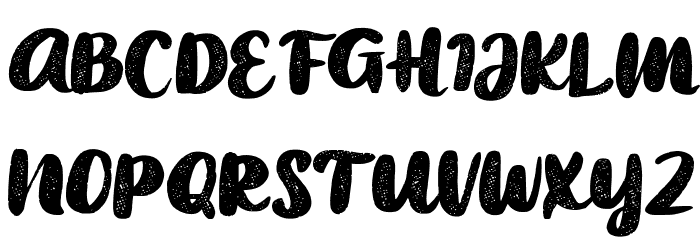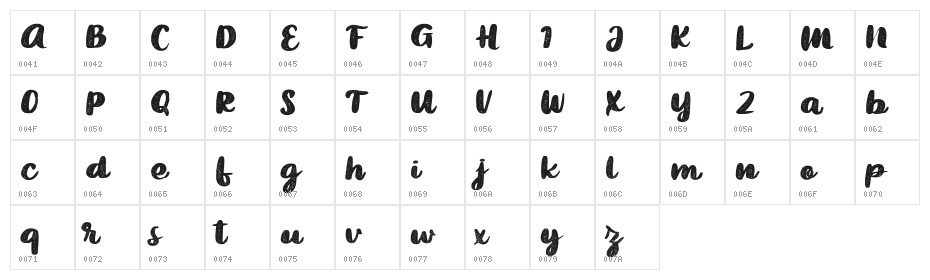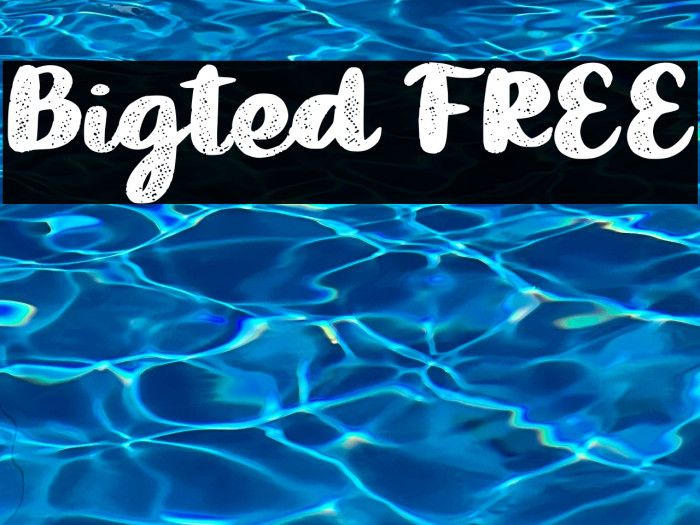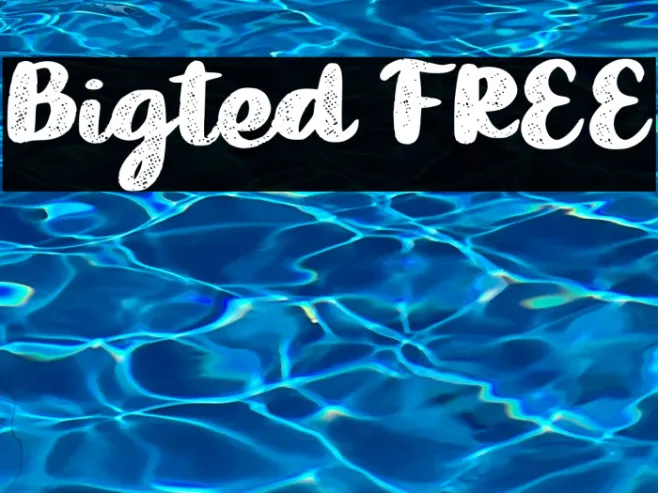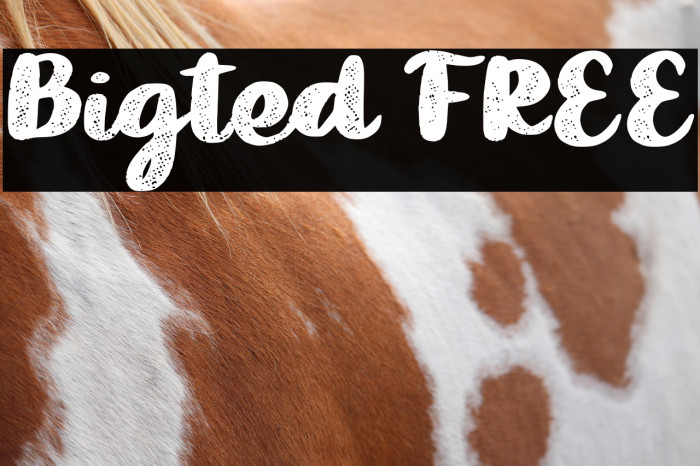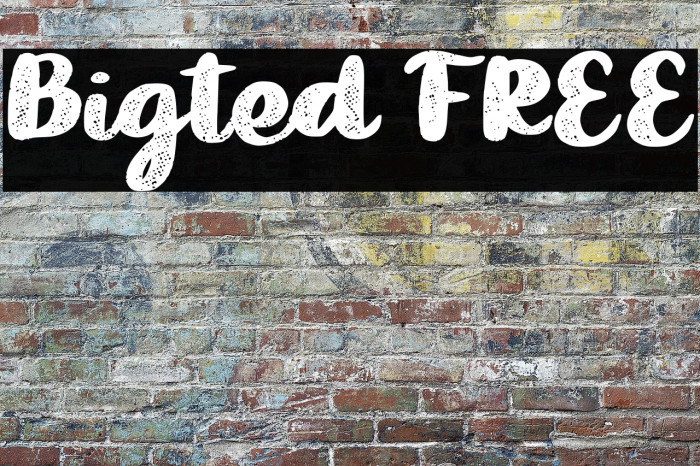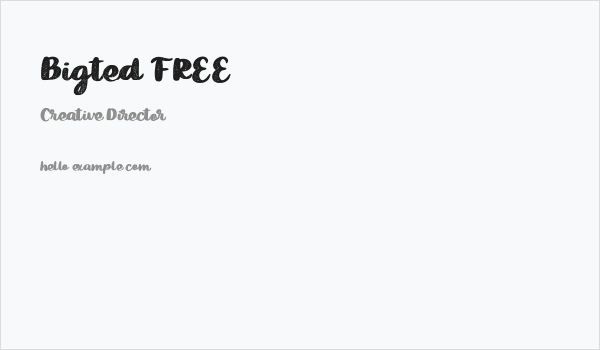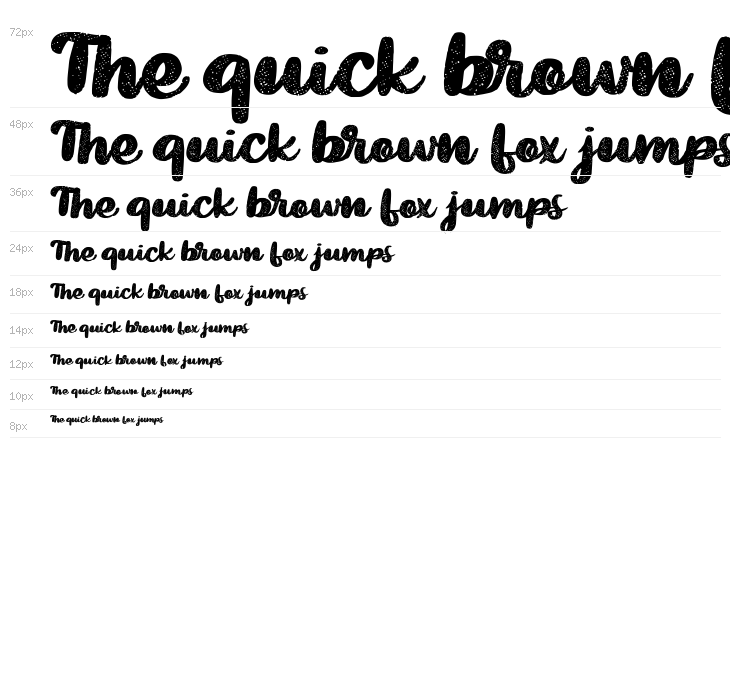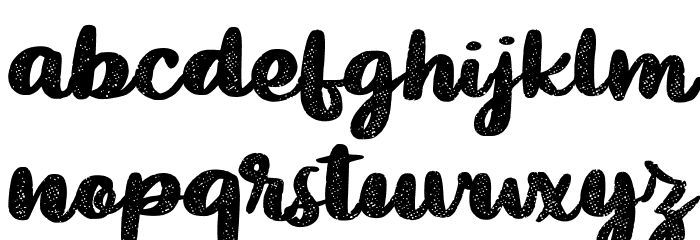
Bigted FREE Font
Bigted FREE Description
This font features a bold, playful script style with a textured, speckled appearance that adds a unique, handcrafted feel. The letters are rounded and connected, giving it a flowing and dynamic look. The uppercase and lowercase characters maintain a consistent style, with a slight slant that enhances its casual and friendly vibe. The numbers and special characters are designed to match the overall aesthetic, making it versatile for various creative projects. Its bold presence and distinctive texture make it stand out, perfect for designs that require a touch of personality and charm.